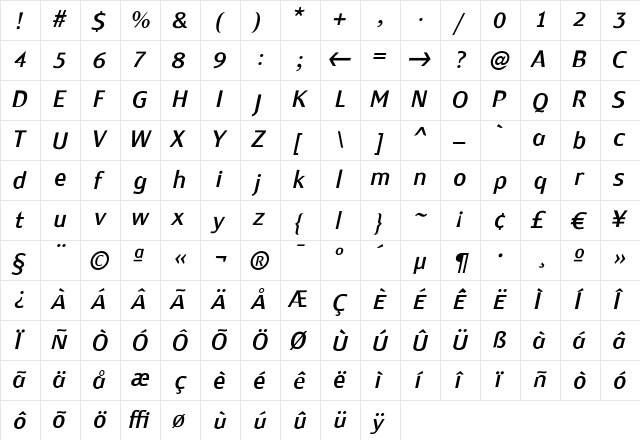
Monem Normal Italic Font Preview
Monem Normal Italic
Monem Normal Italic Font Details
Design Context for Monem Normal Typeface
Monem Normal is a composed and adaptable typeface that performs quietly and consistently across a wide range of design contexts. The dynamic lean of this cut emphasises speed and emphasis in any layout.
Pro Tip: Use Monem Normal for emphasis, pull quotes, and subheadings where its slanted energy can add rhythm to the layout.